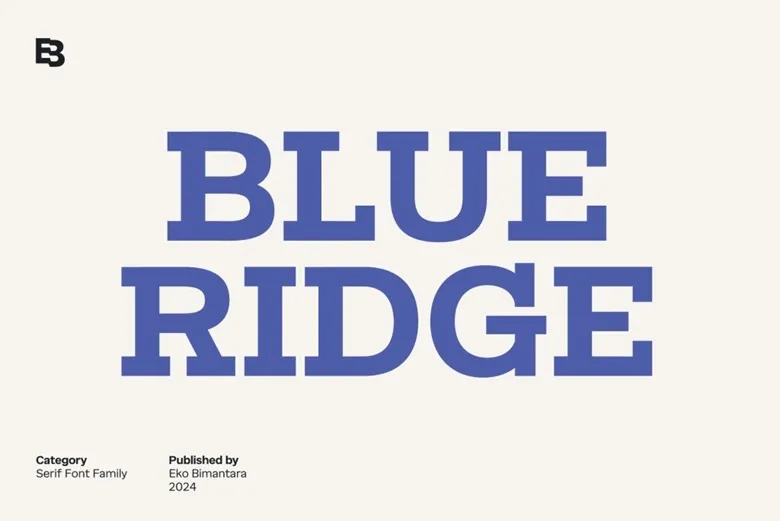
Blue Ridge Font is a bold and confident slab serif typeface created and designed by Eko Bimantara.. This font has got wide characters and bold serifs to make it appropriate for use in designing attention-grabbing prints.